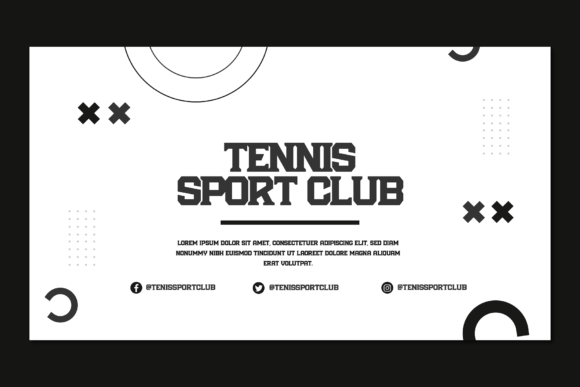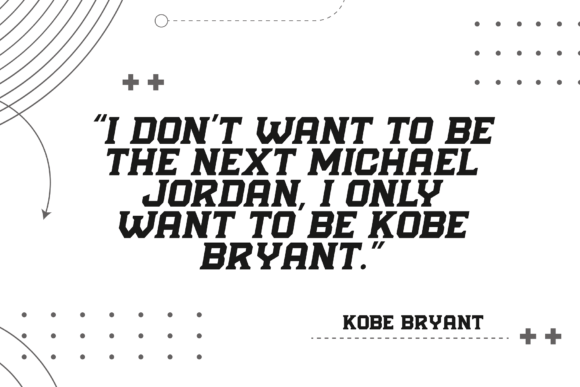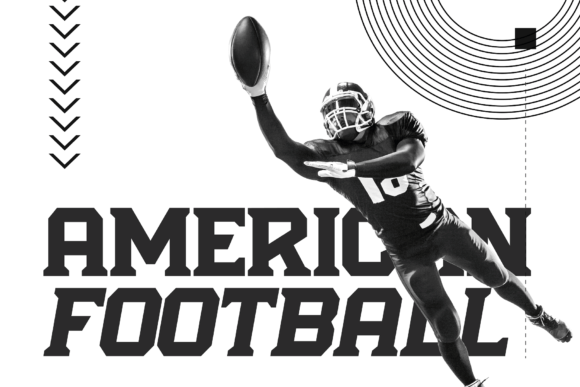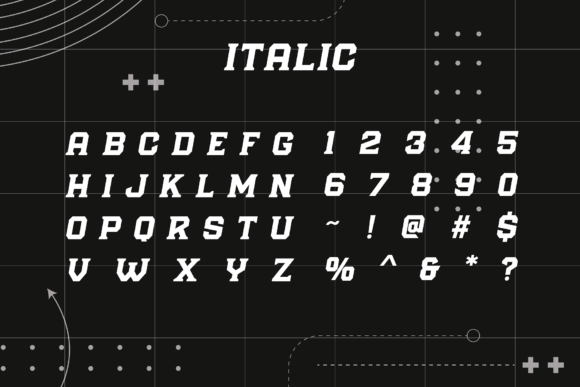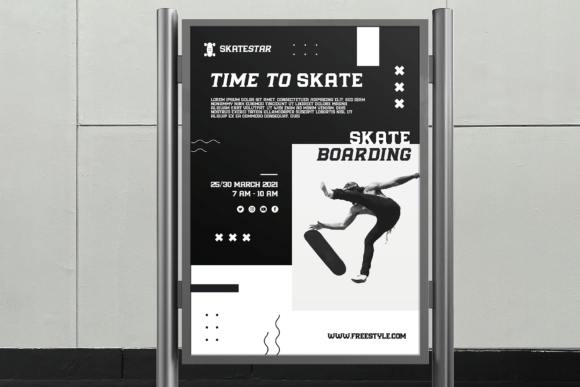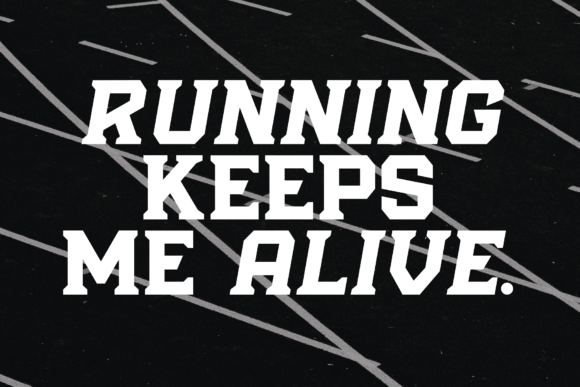
Introduction to Endzone Express Font
Introducing Endzone Express, the breathtakingly bold and stunning sport typeface that will leave you in awe.
This font is a powerhouse of strength, exuding a thick and robust presence that commands attention Whether youโre designing team jerseys, creating motivational posters, or crafting sports-themed branding materials, Endzone Express delivers an unbeatable combination of style and intensity.
Key Features of Endzone Express Font
Why Choose Endzone Express Font?
Endzone Express Font offers exceptional quality and versatility, making it a valuable addition to your design toolkit. Whether you’re creating for personal projects or commercial use, Endzone Express Font delivers professional results.